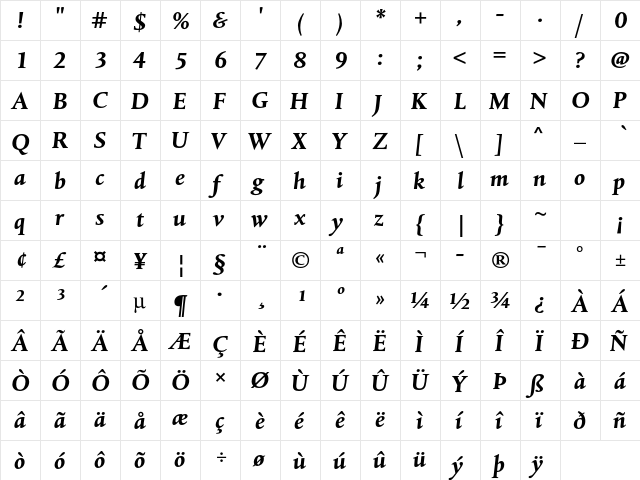
Albertina MT Std Bold Italic Font Preview
Design Context for Albertina MT Std Typeface
Albertina MT Std takes a measured approach to typography — its balanced proportions and neutral character make it a reliable workhorse for both digital and print work. The dynamic lean of this cut emphasises speed and emphasis in any layout. The heavy weight commands attention and anchors typographic hierarchies.
Pro Tip: Use Albertina MT Std for emphasis, pull quotes, and subheadings where its slanted energy can add rhythm to the layout.